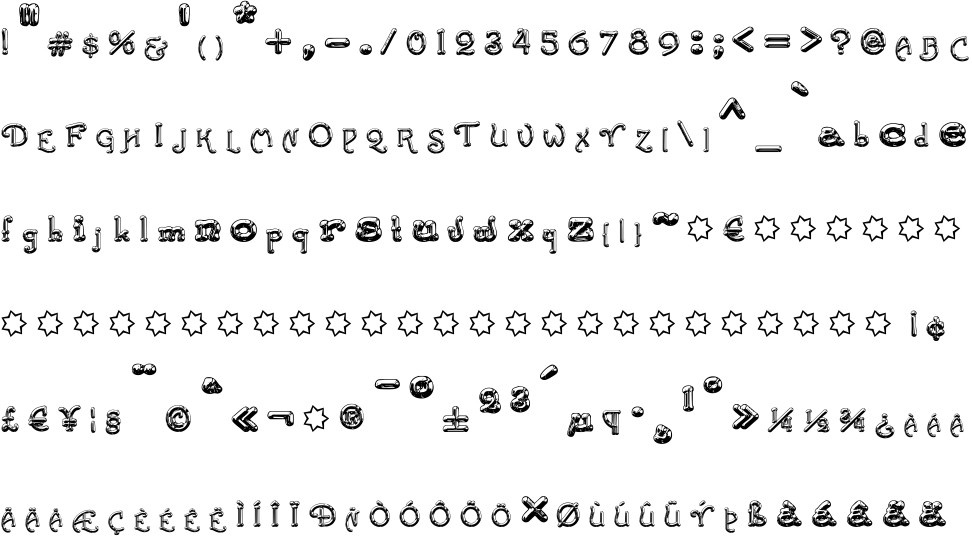
Santa's Sleigh Font Free Download . Web free download of santa's sleigh font family with 3 styles. Santas sleigh font is free for both personel and commercial usages.
Santa's sleigh is a handwriting type font that can be used on any device. Web santa's sleigh font download is available free from fontget. Created by hypotypo, santa’s sleigh is a handwriting font that adds a festive touch to any project.
Web santa's sleigh font download is available free from fontget. Created by hypotypo, santa’s sleigh is a handwriting font that adds a festive touch to any project. Web free download of santa's sleigh font family with 3 styles. Santa's sleigh is a handwriting type font that can be used on any device.
Santa's Sleigh Font Free Download - Web free download of santa's sleigh font family with 3 styles. Web santa's sleigh font download is available free from fontget. Web download santa's sleigh font free! Created by hypotypo, santa’s sleigh is a handwriting font that adds a festive touch to any project. Web 1,811,787 downloads (19 yesterday) 61 comments 3 font files.
Santa's Sleigh Font Free Download - Created by hypotypo, santa’s sleigh is a handwriting font that adds a festive touch to any project. Web 1,811,787 downloads (19 yesterday) 61 comments 3 font files. Web free download of santa's sleigh font family with 3 styles. Web download the santa’s sleigh font for free from fontget. Santas sleigh font is free for both personel and commercial usages.
Santa's Sleigh Font Free Download - Web free download of santa's sleigh font family with 3 styles. Web download the santa’s sleigh font for free from fontget. Created by hypotypo, santa’s sleigh is a handwriting font that adds a festive touch to any project. Web download santa's sleigh font free! Santa's sleigh is a handwriting type font that can be used on any device.
Santa's Sleigh Font Free Download - Created by hypotypo, santa’s sleigh is a handwriting font that adds a festive touch to any project. Web download the santa’s sleigh font for free from fontget. Web 1,811,787 downloads (19 yesterday) 61 comments 3 font files. Web santa's sleigh font download is available free from fontget. Santa's sleigh is a handwriting type font that can be used on any.
Santa's Sleigh Font Free Download - Web download the santa’s sleigh font for free from fontget. Web 1,811,787 downloads (19 yesterday) 61 comments 3 font files. Created by hypotypo, santa’s sleigh is a handwriting font that adds a festive touch to any project. Web free download of santa's sleigh font family with 3 styles. Santa's sleigh is a handwriting type font that can be used on.
Santa's Sleigh Font Free Download - Web santas sleigh font is a holiday, christmas font designed by hypotypo. Web download the santa’s sleigh font for free from fontget. Web download santa's sleigh font free! Web free download of santa's sleigh font family with 3 styles. Web santa's sleigh font download is available free from fontget.
Santa's Sleigh Font Free Download - Created by hypotypo, santa’s sleigh is a handwriting font that adds a festive touch to any project. Web download santa's sleigh font free! Web santas sleigh font is a holiday, christmas font designed by hypotypo. Web santa's sleigh font download is available free from fontget. Web download the santa’s sleigh font for free from fontget.
Santa's Sleigh Font Free Download - Web 1,811,787 downloads (19 yesterday) 61 comments 3 font files. Web santa's sleigh font download is available free from fontget. Santas sleigh font is free for both personel and commercial usages. Web download santa's sleigh font free! Web santas sleigh font is a holiday, christmas font designed by hypotypo.
Santa's Sleigh Font Free Download - Web download the santa’s sleigh font for free from fontget. Web santas sleigh font is a holiday, christmas font designed by hypotypo. Web free download of santa's sleigh font family with 3 styles. Web santa's sleigh font download is available free from fontget. Web 1,811,787 downloads (19 yesterday) 61 comments 3 font files.
Santa's Sleigh Font Free Download - Santas sleigh font is free for both personel and commercial usages. Santa's sleigh is a handwriting type font that can be used on any device. Created by hypotypo, santa’s sleigh is a handwriting font that adds a festive touch to any project. Web 1,811,787 downloads (19 yesterday) 61 comments 3 font files. Web download santa's sleigh font free!
Santa's Sleigh Font Free Download - Created by hypotypo, santa’s sleigh is a handwriting font that adds a festive touch to any project. Web santa's sleigh font download is available free from fontget. Web santas sleigh font is a holiday, christmas font designed by hypotypo. Web download the santa’s sleigh font for free from fontget. Web free download of santa's sleigh font family with 3 styles.
Santa's Sleigh Font Free Download - Santas sleigh font is free for both personel and commercial usages. Web santa's sleigh font download is available free from fontget. Santa's sleigh is a handwriting type font that can be used on any device. Web 1,811,787 downloads (19 yesterday) 61 comments 3 font files. Web santas sleigh font is a holiday, christmas font designed by hypotypo.